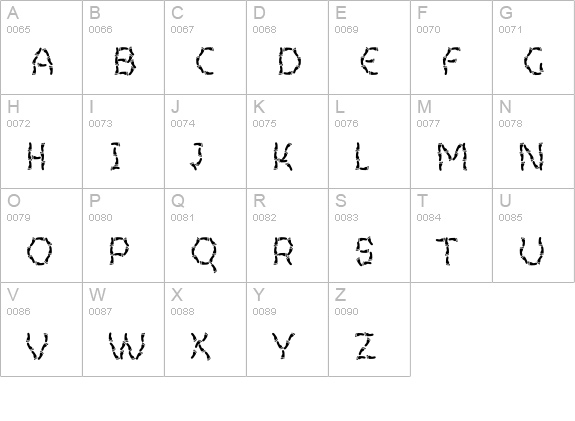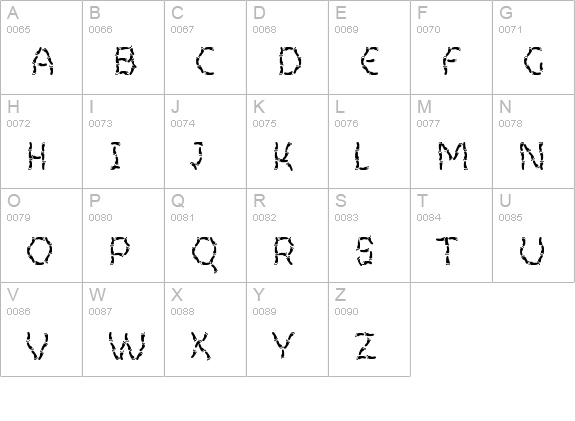
Barefoot Font Details
Barefoot font is a charming and whimsical typeface that exudes a sense of casual elegance. With its flowing lines and unique curves, this font is perfect for adding a touch of playfulness to any design project. Whether you're working on a greeting card, website, or branding materials, Barefoot font will bring a sense of warmth and friendliness to your work. What's even better is that Barefoot font is completely free to download at FontsMarket.com. Simply visit the website and start using this delightful font in your projects today. Don't miss out on the opportunity to add a touch of creativity and personality to your designs with Barefoot font.